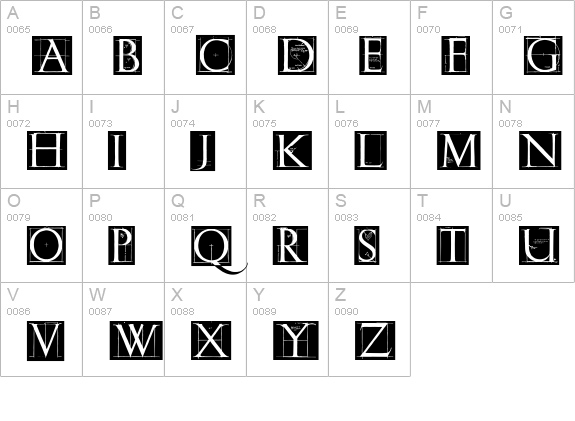
ErikGCapsSkInvers Font Details
ErikGCapsSkInvers is a unique and eye-catching font that exudes a sense of creativity and sophistication. With its bold, inverted lettering style, this font is perfect for making a statement in your designs. Whether you're working on a poster, logo, or any other creative project, ErikGCapsSkInvers will certainly grab attention. What's even better is that ErikGCapsSkInvers is completely free to download at FontsMarket.com. Yes, you read that right - you can elevate your design game with this stunning font without spending a dime. Don't miss out on the opportunity to add a touch of elegance and flair to your projects with ErikGCapsSkInvers. Download it today and let your creativity soar!